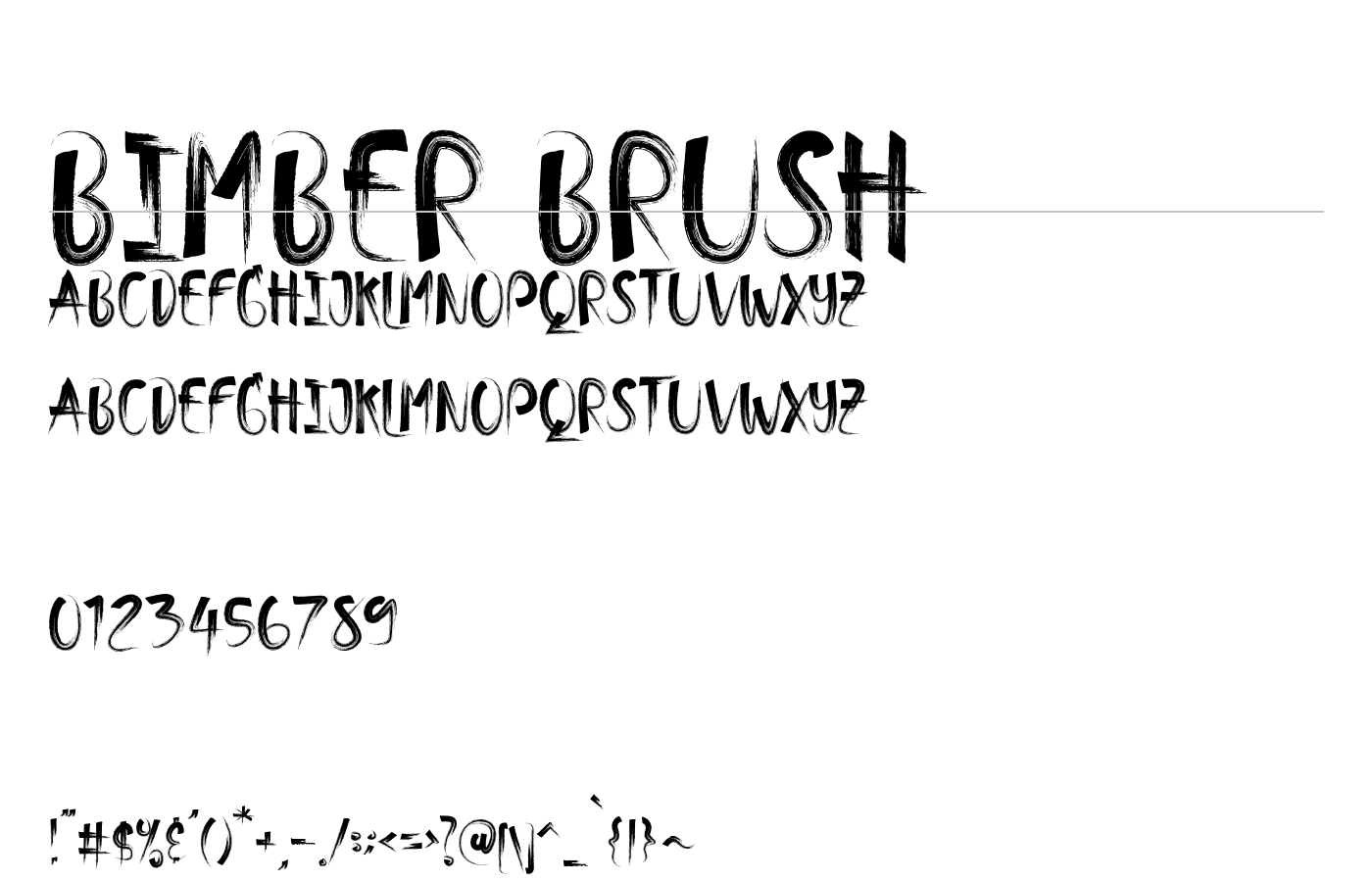
Bimber Brush is a striking brush-style font with a bold, textured appearance that combines rough, artistic strokes with playful irregularity. Its tall, narrow letters and spontaneous brush marks give it a raw, edgy feel, perfect for creative projects that aim to stand out with a casual, handcrafted vibe. This font works great for headlines, posters, and branding that want to evoke energy and personality while maintaining a distinctive, artistic charm.
Bimber Brush Font
About Bimber Brush Font
| Font family | Bimber Brush Font |
| Designer | 177Studio |